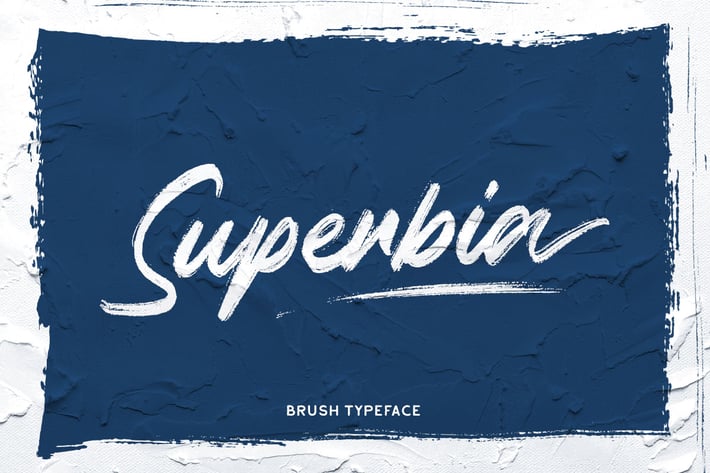
Superbia Typeface
Introducing, Superbia, a textured brush font! The natural hand writing script is suitable for you who needs a typeface for headline, logotype, apparel, branding, packaging, advertising etc. This typeface is comes in uppercase, lowercase, punctuations, symbols & numerals, and stylistic set alternate. also support multilingual. It also already PUA Encoded. Thank You!